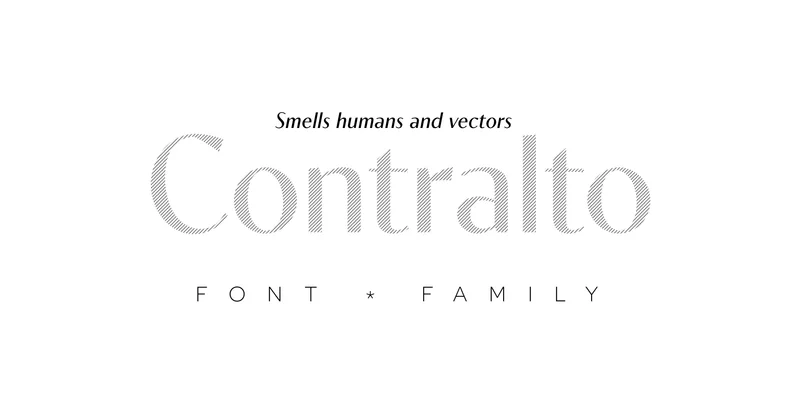
Contralto is a high contrast sans-serif font family, crafted to look elegant but contemporary thanks to soft humanist shapes and sharp geometric details.